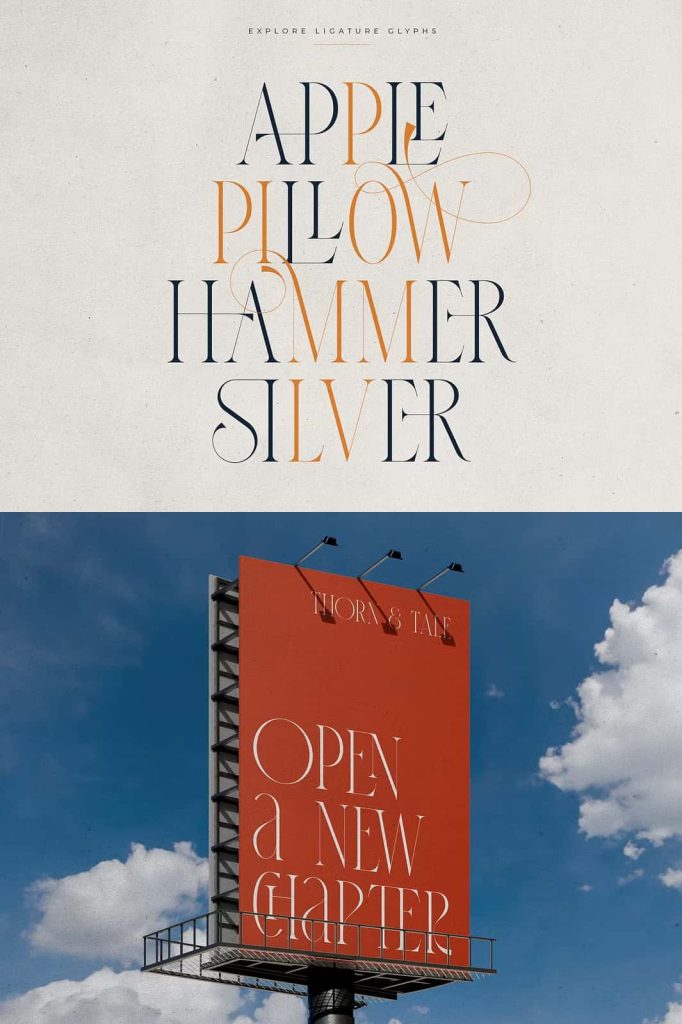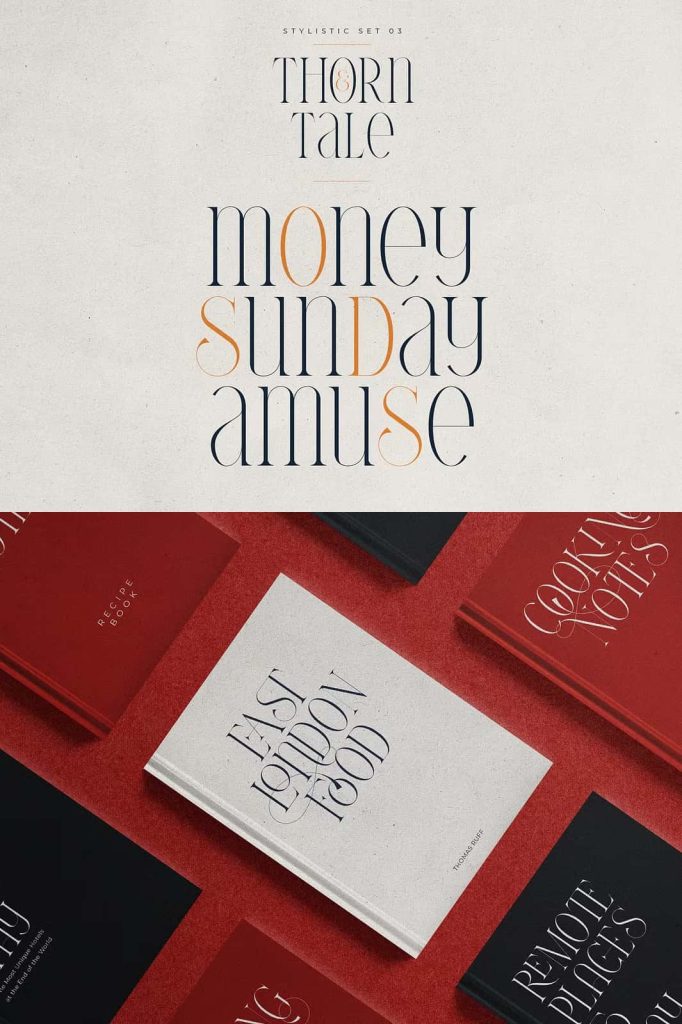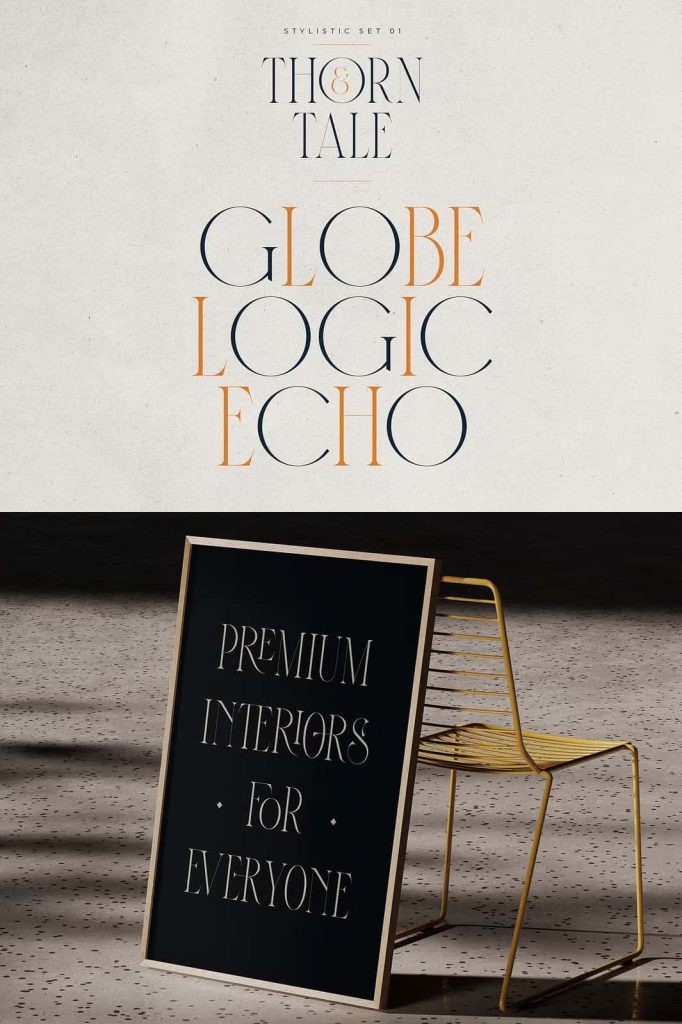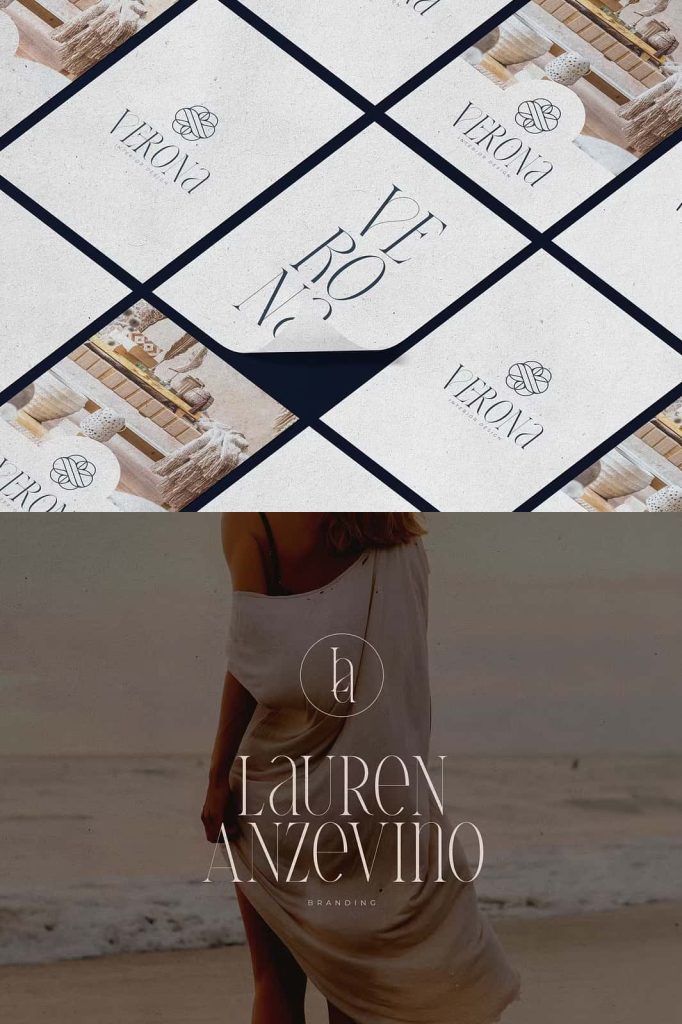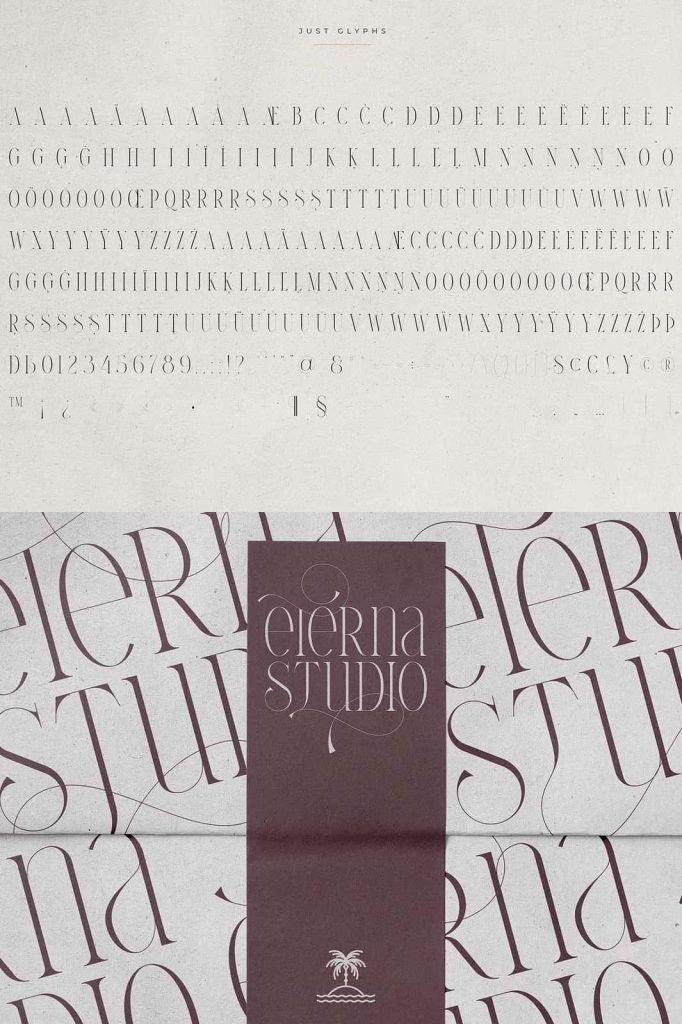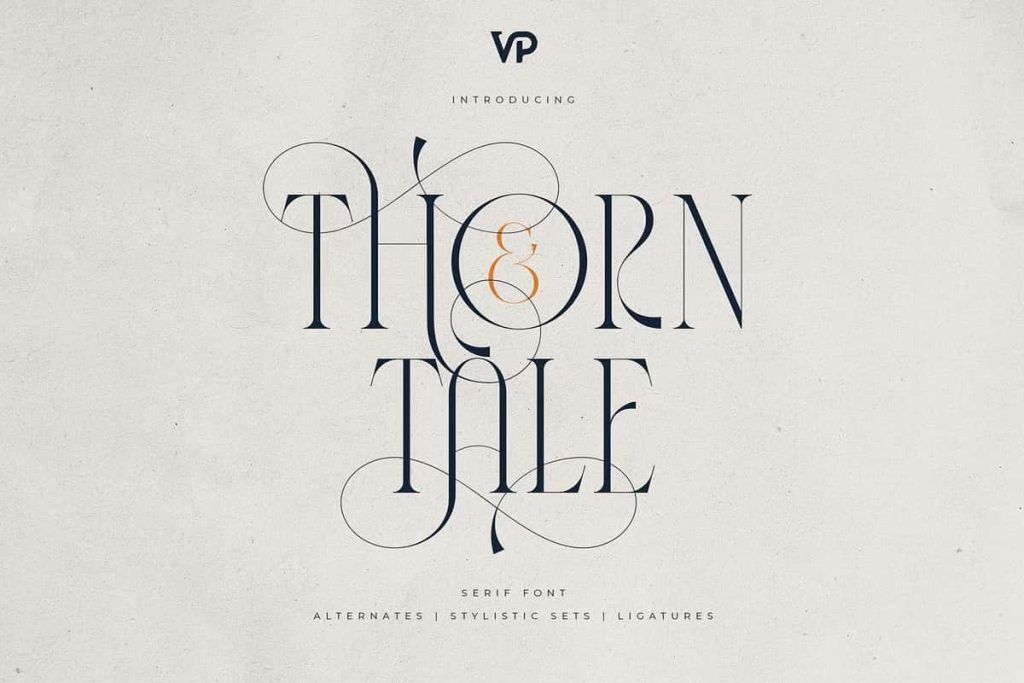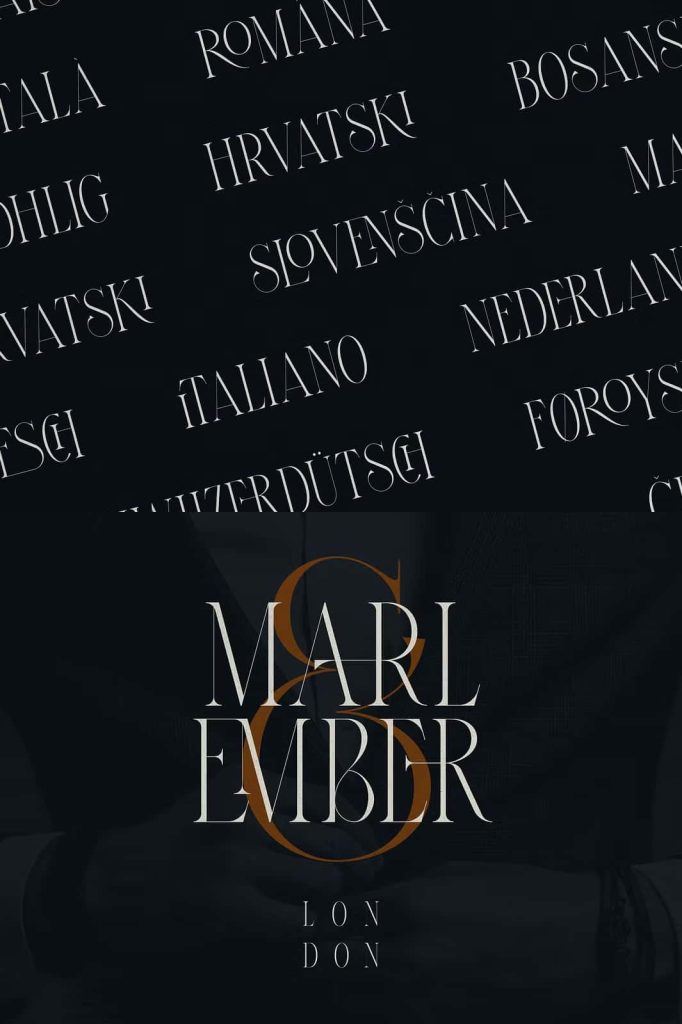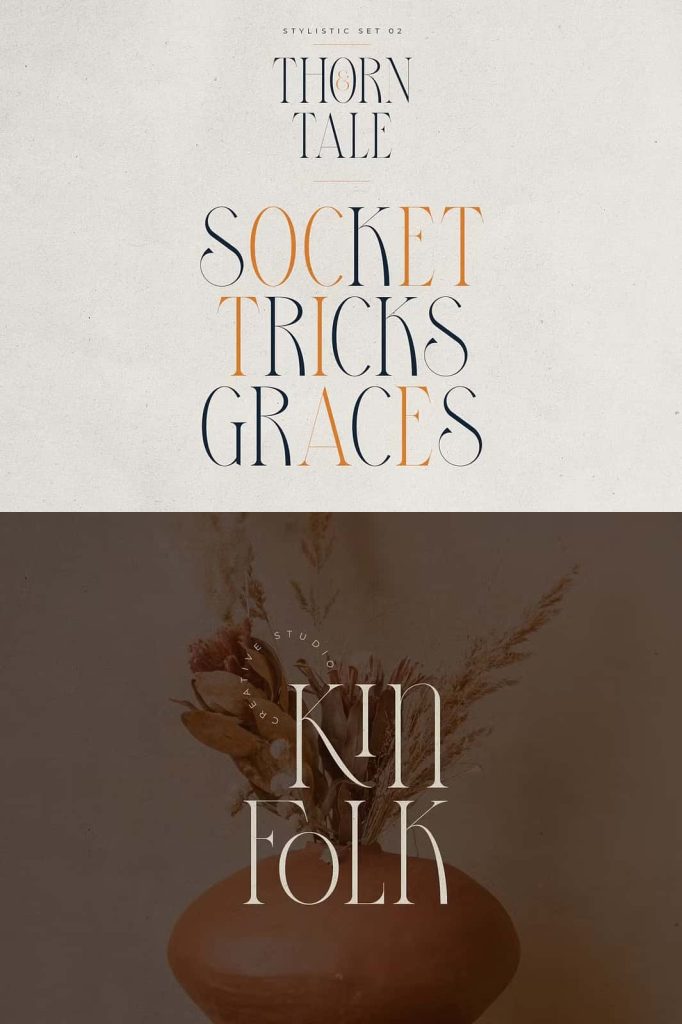
Thorn & Tale: A Luxury High-Contrast Serif Font for Elegant Branding and Editorial Design
Thorn & Tale is a refined high-contrast serif font that brings elegance, sophistication, and visual impact to every design project. Created for designers who want to communicate luxury and confidence, this typeface combines timeless serif traditions with contemporary character. The result is a versatile font that feels both classic and modern, making it an excellent choice for premium branding, editorial layouts, packaging, and high-end marketing materials.
Every letterform in Thorn & Tale showcases carefully crafted details that enhance readability while delivering a striking visual presence. The dramatic contrast between thick and thin strokes creates a sense of refinement that immediately captures attention. Whether used for bold headlines, luxury product packaging, magazine covers, or sophisticated logos, this font adds a distinctive and memorable touch.
Elegant Design with Modern Expression
Thorn & Tale embraces the beauty of traditional serif typography while introducing a fresh and expressive personality. The font features graceful curves, sharp serifs, and balanced proportions that create a polished and professional appearance. These design characteristics allow the typeface to stand out in competitive visual environments without sacrificing clarity.
The combination of classic elegance and modern styling makes Thorn & Tale suitable for a wide range of creative applications. Designers can use it to establish a premium brand identity, create compelling editorial spreads, or develop visually engaging promotional materials that leave a lasting impression.
Distinctive High-Contrast Letterforms
One of the defining characteristics of Thorn & Tale is its dramatic high-contrast structure. The pronounced difference between thick and thin strokes introduces sophistication and visual rhythm to text compositions. This design approach creates strong focal points, making headlines and display text appear more impactful and luxurious.
The font performs exceptionally well in larger sizes where its elegant details can fully shine. From fashion campaigns to premium product labels, Thorn & Tale enhances the overall visual quality of any project.
Perfect for Luxury Branding
Luxury brands require typography that communicates quality, exclusivity, and trust. Thorn & Tale delivers all of these qualities through its refined design language. The font helps businesses create strong visual identities that resonate with sophisticated audiences and premium markets.
Whether you are designing logos, brand guidelines, product packaging, or marketing materials, Thorn & Tale provides the visual authority needed to elevate brand perception. Its elegant appearance supports industries such as fashion, cosmetics, jewelry, hospitality, interior design, and lifestyle products.
Applications for Premium Brand Projects
- Luxury logo design
- Fashion and beauty branding
- Cosmetic packaging
- Jewelry and boutique marketing
- Premium product labels
- Business cards and stationery
- Website headers and landing pages
- Advertising campaigns
Excellent Choice for Editorial Design
Editorial designers often seek typefaces that can establish hierarchy, create visual interest, and maintain readability. Thorn & Tale excels in these areas by providing elegant display typography that enhances the overall reading experience. Its sophisticated style works beautifully for magazine titles, feature articles, book covers, and creative publications.
The font’s expressive personality helps publications establish a strong visual identity while maintaining a professional and polished appearance. Designers can pair it with clean sans-serif fonts to create balanced layouts that feel modern and engaging.
Create Memorable Headlines and Covers
Thorn & Tale shines in large-format typography where its dramatic details become a central design element. Headlines, cover titles, and promotional statements gain additional impact through the font’s elegant structure and luxurious character. This makes it an ideal option for magazines, catalogs, brochures, and high-end publishing projects.
Versatile Typography for Creative Professionals
Beyond branding and editorial applications, Thorn & Tale offers flexibility for a variety of creative projects. Graphic designers, marketers, and content creators can use this font to produce visually compelling materials that stand out in both print and digital environments.
Its balanced design allows it to adapt to modern websites, social media graphics, packaging concepts, event invitations, and presentation materials. The font consistently delivers a sophisticated appearance that enhances overall design quality.
Why Choose Thorn & Tale?
Thorn & Tale combines elegance, drama, and functionality in a single typeface. Its high-contrast serif construction creates a luxurious visual experience while maintaining professional versatility. Designers looking to elevate their projects with a premium serif font will find Thorn & Tale to be a valuable addition to their typography collection.
With its blend of timeless sophistication and contemporary expression, Thorn & Tale helps transform ordinary designs into memorable visual experiences. Whether you are building a luxury brand, designing editorial content, or creating premium packaging, this serif font delivers the style and impact needed to make a lasting impression.